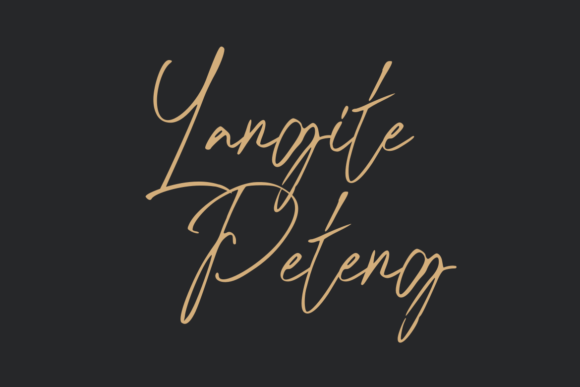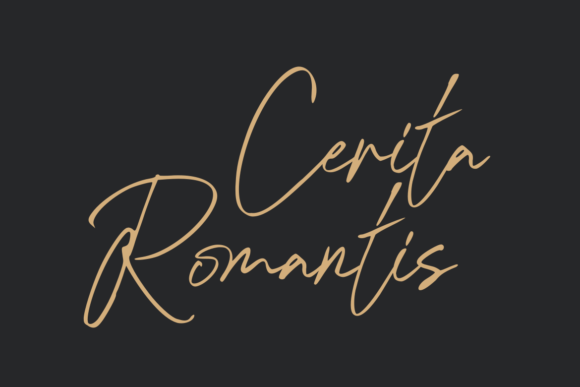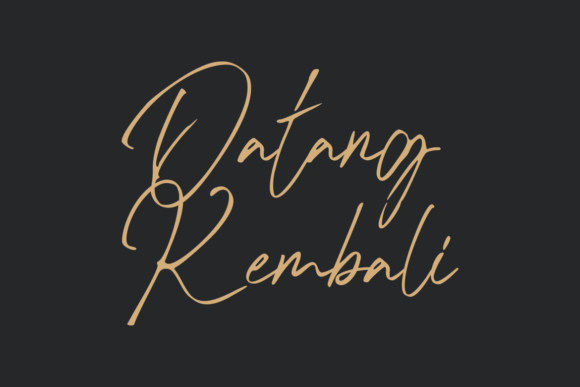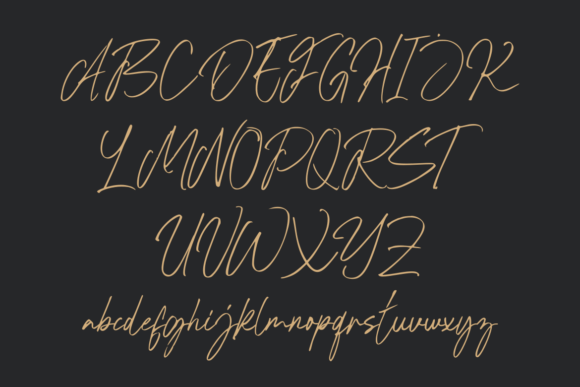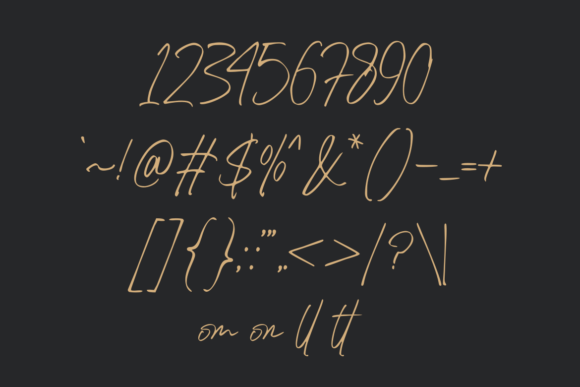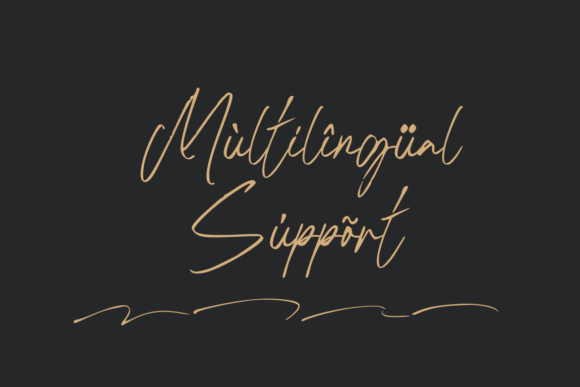
Introducing Farhatin Font: Elevate Your Designs with Elegance and Sophistication
In the world of typography, a well-crafted font can make all the difference in transforming a design from ordinary to extraordinary. For designers and crafters seeking a modern script calligraphy typeface that exudes elegance and sophistication, look no further than Farhatin Font. With its unique flow and charming personality, Farhatin is poised to become the go-to choice for a wide range of design projects.
What is Farhatin Font?
Farhatin is a modern script calligraphy typeface that boasts a distinctive and refined aesthetic. Its elegant strokes and fluid connections make it perfect for designs that require a touch of sophistication and luxury. Whether you’re working on a logo design, branding campaign, or creating eye-catching covers and posters, Farhatin Font is an excellent choice.
Key Features of Farhatin Font
- Unique Flow: Farhatin Font features a distinctive flow that sets it apart from other script typefaces. Its carefully crafted strokes and connections create a sense of movement and fluidity, making it perfect for designs that require a dynamic touch.
- Elegant Personality: Farhatin exudes elegance and sophistication, making it an excellent choice for designs that require a touch of luxury and refinement.
- Versatility: Farhatin Font is suitable for a wide range of design projects, including logo design, branding, covers, posters, and more.
- Modern Aesthetic: Farhatin’s modern script calligraphy style ensures that your designs look fresh and contemporary, perfect for brands and designers seeking to make a statement.
Use Cases for Farhatin Font
Farhatin Font is an incredibly versatile typeface that can be used in a variety of design projects. Here are some examples:
- Logo Design: Create a lasting impression with a custom logo designed using Farhatin Font. Its unique flow and elegant personality make it perfect for brands seeking to establish a sophisticated identity.
- Branding: Use Farhatin Font to create a cohesive brand image that exudes luxury and refinement. Its modern aesthetic ensures that your brand stands out in a crowded market.
- Covers and Posters: Add a touch of elegance to your covers and posters with Farhatin Font. Its fluid connections and refined aesthetic make it perfect for designs that require a sophisticated touch.
Why Choose Farhatin Font?
With so many typefaces available, why choose Farhatin Font? Here are a few compelling reasons:
- Unique Aesthetic: Farhatin Font offers a distinctive and refined aesthetic that sets it apart from other typefaces.
- Elegance and Sophistication: Farhatin exudes elegance and sophistication, making it perfect for designs that require a touch of luxury and refinement.
- Versatility: Farhatin Font is suitable for a wide range of design projects, making it an excellent addition to any designer’s toolkit.
- Modern and Fresh: Farhatin’s modern script calligraphy style ensures that your designs look fresh and contemporary.
In conclusion, Farhatin Font is an exceptional modern script calligraphy typeface that offers a unique flow and elegant personality. Its versatility, modern aesthetic, and refined aesthetic make it perfect for a wide range of design projects, from logo design and branding to covers and posters. If you’re seeking a typeface that can elevate your designs and add a touch of sophistication, look no further than Farhatin Font.
Whether you’re a designer, crafter, or simply someone who appreciates beautiful typography, Farhatin Font is an excellent choice. Its distinctive aesthetic and elegant personality make it an excellent addition to any design project. So why wait? Discover the power of Farhatin Font and take your designs to the next level.